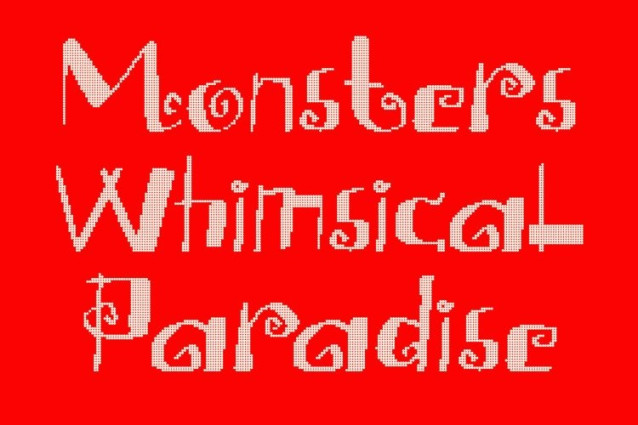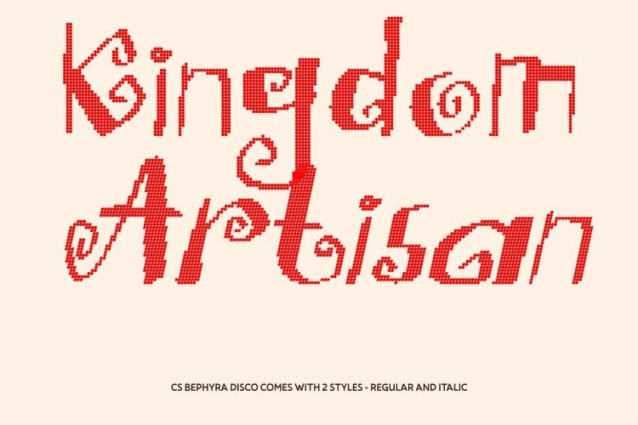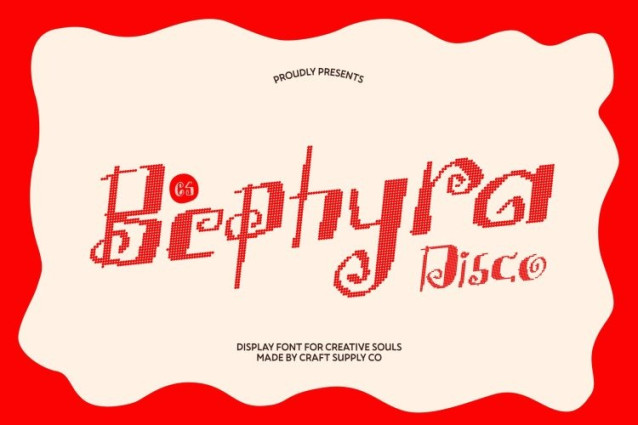
CS Bephyra Disco Font
CS Bephyra Disco Font This is a whimsical storybook sans serif font crafted to spark imagination and joy, now infused with a lively disco-inspired energy. Its playful curves and charming letterforms feel like they’ve stepped out of a fairytale then hit the dance floor. The result is a font that feels magical, cheerful, and full of celebratory sparkle.
Soft Curved Forms with Playful, Festive Expression
The gently rounded sans serif structure gives the font a friendly, childlike warmth while maintaining clear readability. With its disco touch, the curves feel more animated and expressive, evoking movement, rhythm, and glowing lights. This balance creates a typeface that feels fun, approachable, and bursting with personality.
Decorative Details with Fantasy Flair and Party Energy
Subtle decorative accents enhance the font’s whimsical nature while adding a festive shimmer. These details bring a sense of fantasy and handcrafted artistry, making each letter feel lively and dynamic like characters dancing across the page. The overall look is imaginative, joyful, and visually engaging.
Perfect for Magical Events, Children’s Themes, and Playful Disco Branding
This font shines in children’s books, fairytale posters, party invitations, playful branding, and creative event designs. Ideal for fantasy worlds with a modern twist, this font captures the wonder of storytelling combined with the upbeat energy of celebration, making every design feel magical, fun, and alive.